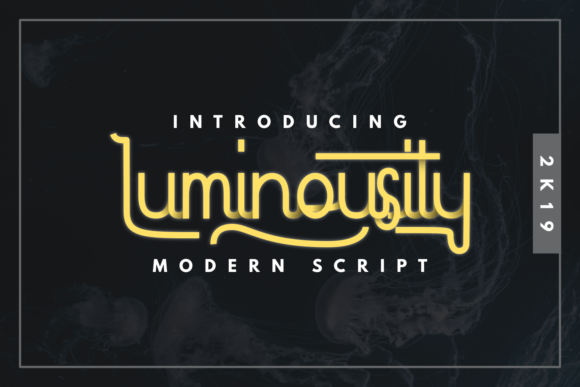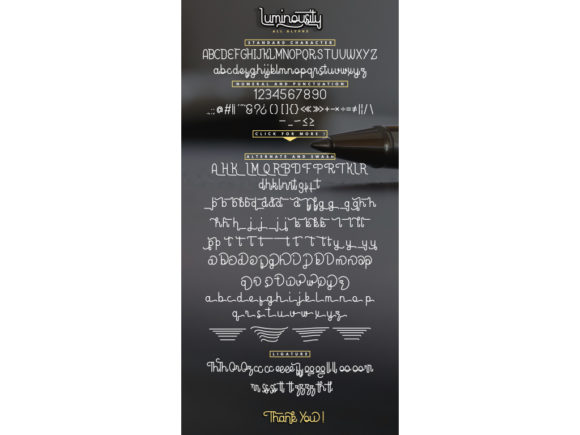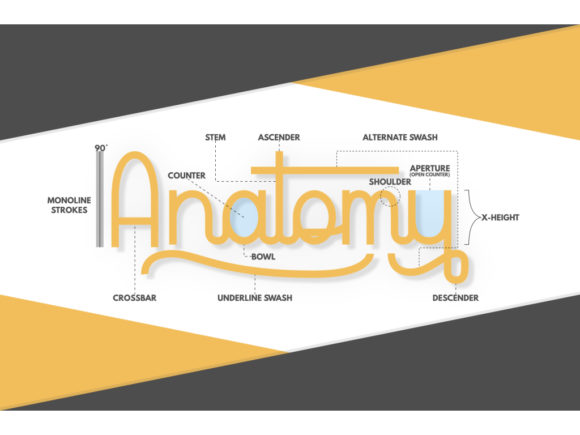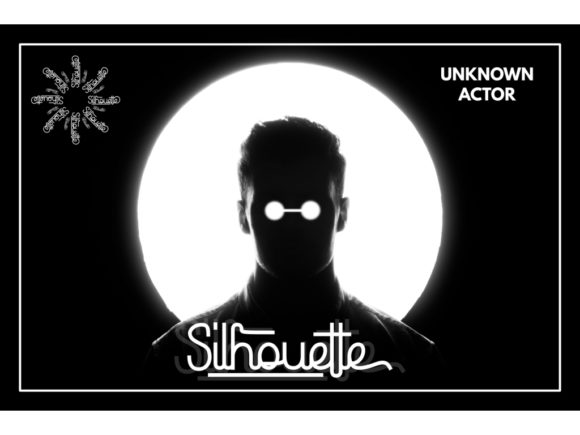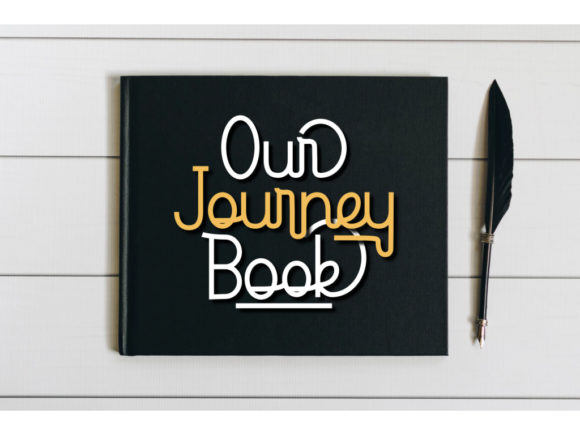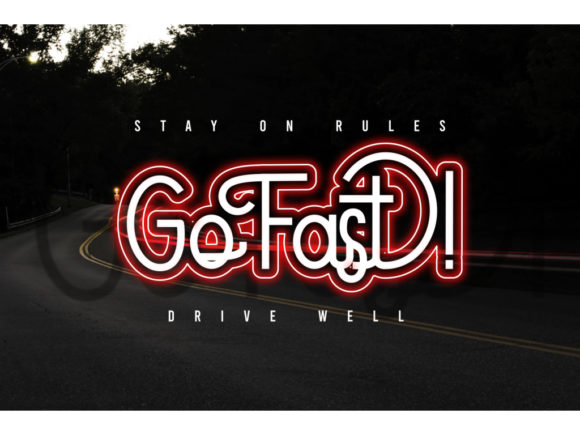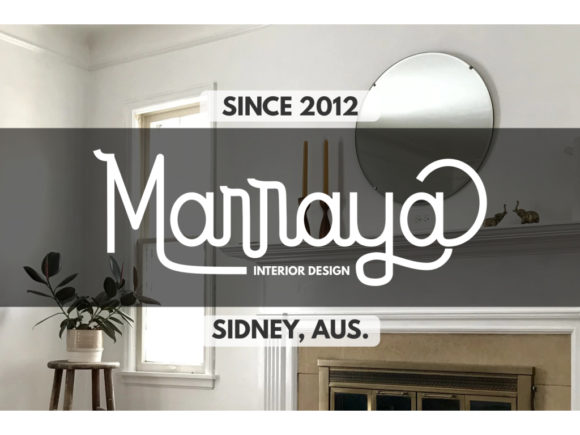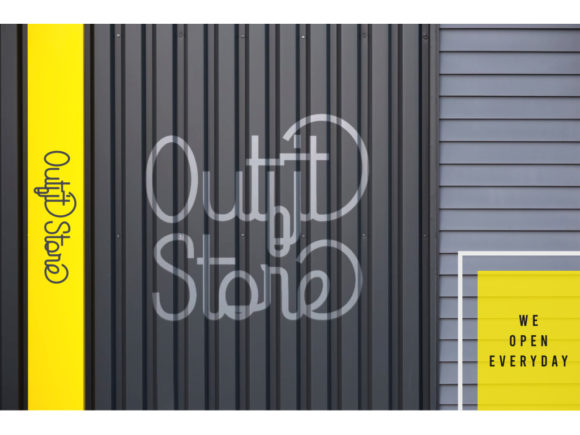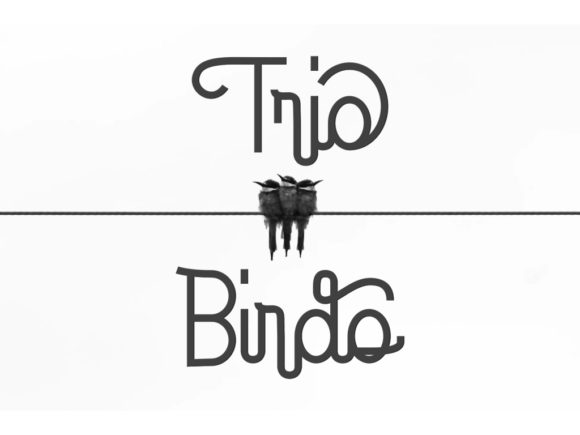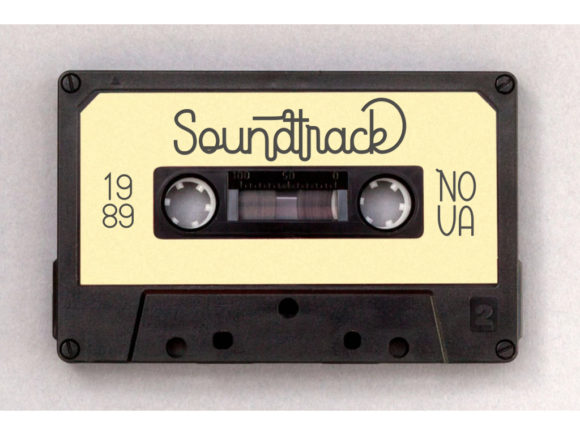
Luminousity Font
About Luminousity Font
Luminousity is a modern and friendly font. Use it for any design project that requires a personalized appearance!